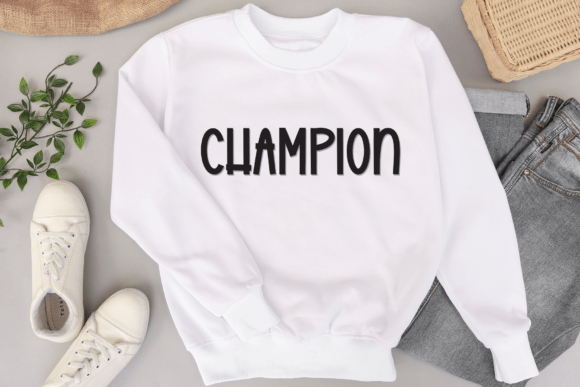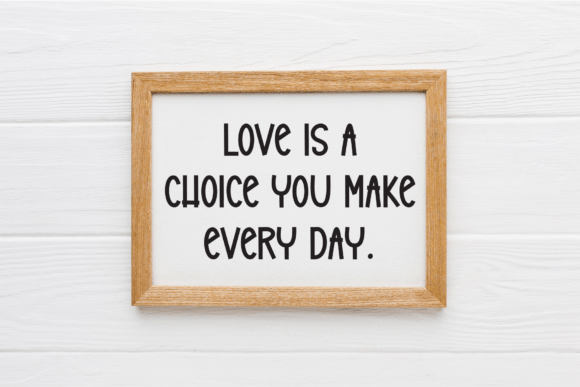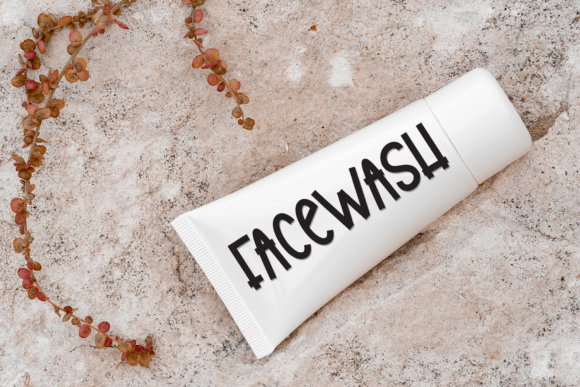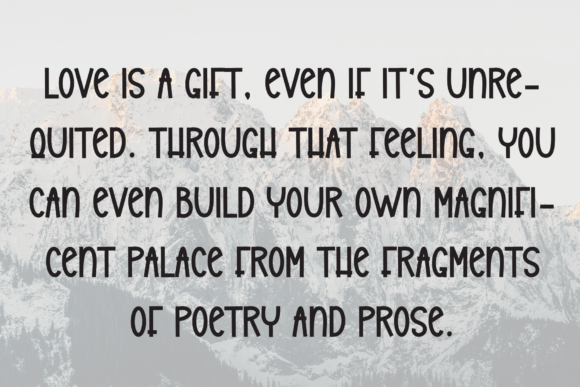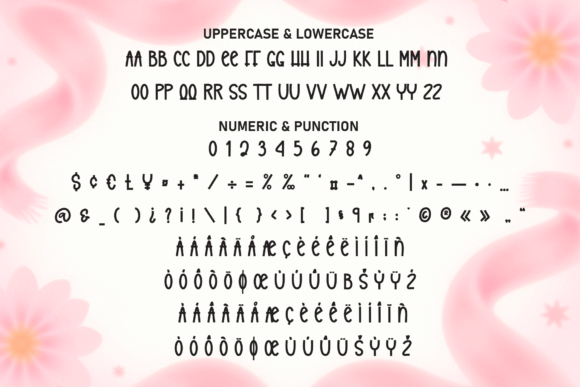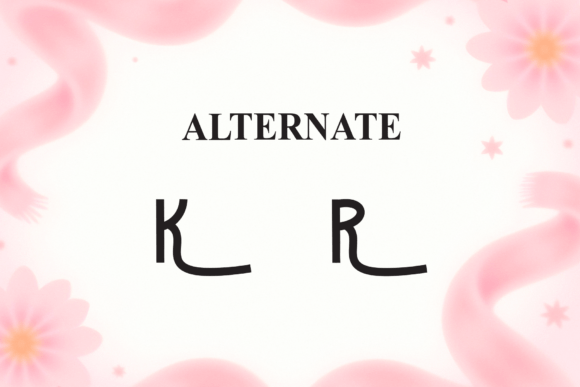
Introducing Barbie Brother Font: The Sweetest Addition to Your Design Collection
Are you on the hunt for a font that exudes warmth, friendliness, and a dash of playfulness? Look no further than the enchanting Barbie Brother Font! This charming handwritten display font is sure to capture the hearts of designers, crafters, and anyone looking to add a touch of sweetness to their creations.
A Font that Speaks to the Heart
Barbie Brother Font is more than just a collection of letters – it’s an experience. With its adorable and playful aesthetics, this font is designed to make your designs shine with a unique warmth and personality. Whether you’re working on wedding invitations, greeting cards, or any project that requires a personal touch, this font is the perfect companion.
Unleash Your Creativity with Barbie Brother Font
Imagine being able to infuse your designs with a sense of fun and friendliness that’s hard to resist. With Barbie Brother Font, you can do just that! This versatile font is perfect for a wide range of applications, including:
What Makes Barbie Brother Font So Special?
So, what sets Barbie Brother Font apart from other fonts out there? Here are just a few reasons why designers and crafters are falling in love with this charming font:
- Handwritten with love: Each letter has been carefully crafted by hand to give the font a warm, personal feel.
- Playful and whimsical: The font’s playful aesthetic is sure to add a touch of fun and personality to your designs.
- Highly versatile: Use it for digital or print projects – Barbie Brother Font is optimized for a wide range of applications.
- Easy to read: Despite its playful nature, the font remains clear and easy to read, making it perfect for body text and headings.
How to Use Barbie Brother Font in Your Designs
Ready to get started with Barbie Brother Font? Here are a few tips to help you make the most of this beautiful font:
- Pair it with contrasting fonts: Combine Barbie Brother Font with a clean sans-serif font to create visual interest and hierarchy.
- Experiment with colors: Try pairing the font with bright, bold colors to amplify its playful personality.
- Add textures and patterns: Mix and match textures and patterns to give your designs a tactile, handmade feel.
Get Ready to Fall in Love with Barbie Brother Font
In a world where design trends come and go, Barbie Brother Font is a breath of fresh air. Its unique blend of playfulness, warmth, and friendliness makes it the perfect addition to any design collection. So why wait? Dive into the world of Barbie Brother Font and discover a font that will make your designs shine with sweetness and delight!
Whether you’re a seasoned designer or a crafty DIY enthusiast, Barbie Brother Font is sure to capture your heart. So go ahead, get creative, and make your messages uncompromisingly engaging with this charming handwritten display font!